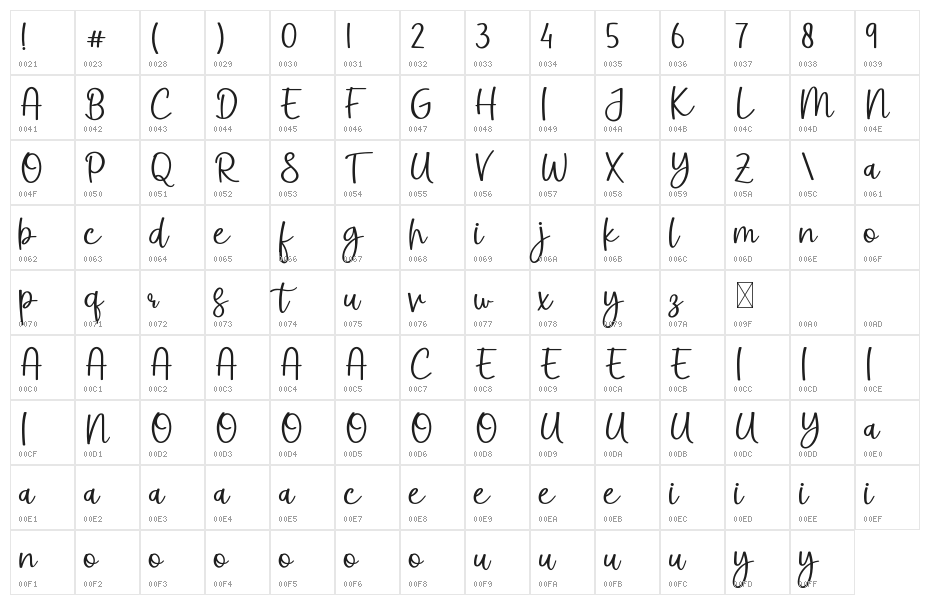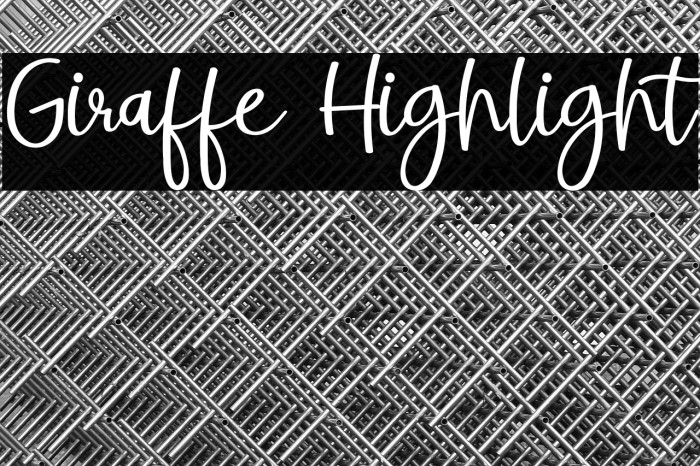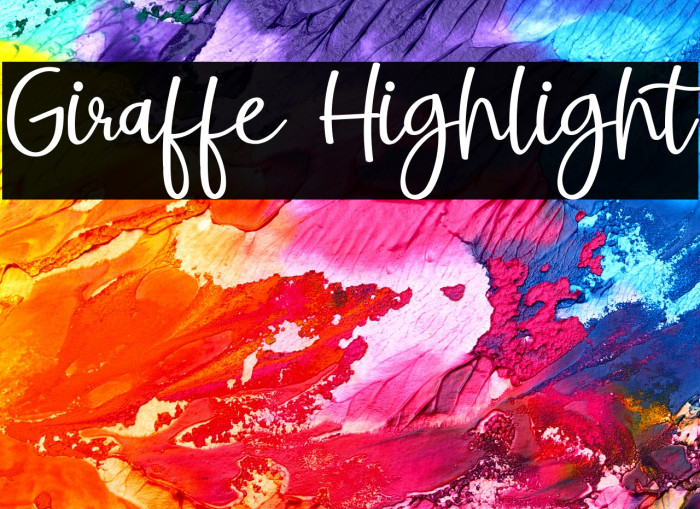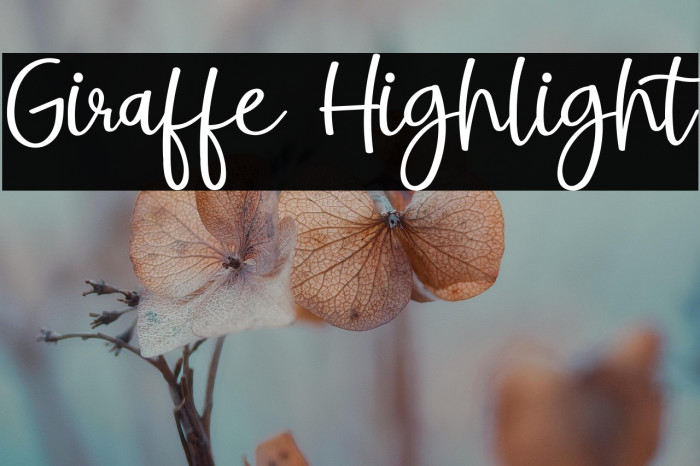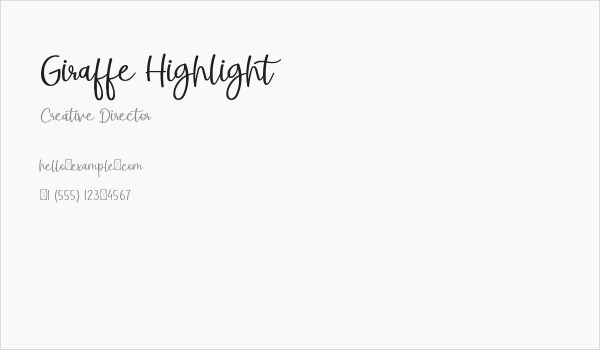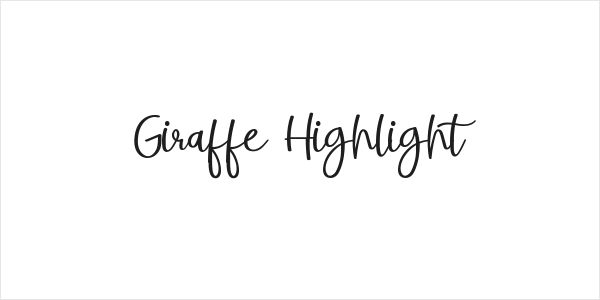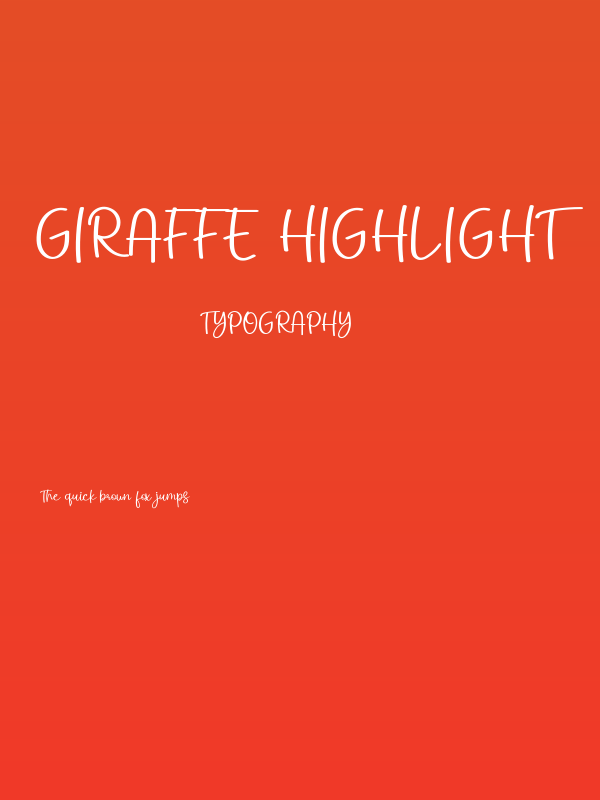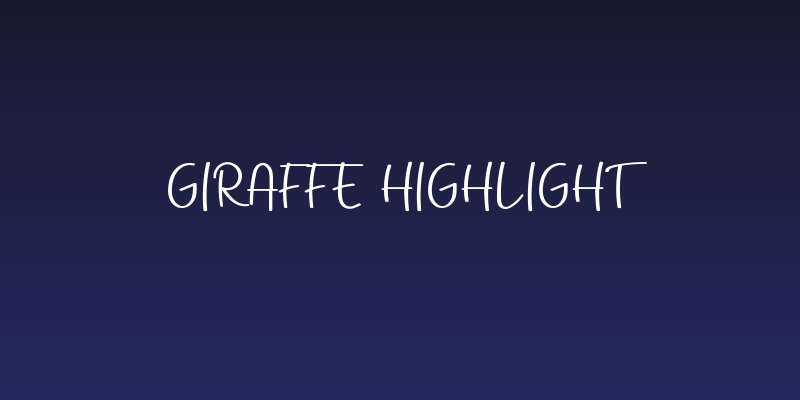
Giraffe Highlight Font
Giraffe Highlight Description
This font features a playful and casual handwritten style, characterized by smooth, flowing lines and a slightly irregular baseline that adds a touch of whimsy. The uppercase letters are tall and slender, with a consistent stroke width that maintains readability. The lowercase letters are more varied in height, with some letters extending below the baseline, enhancing the font's dynamic appearance. The numerals are clear and straightforward, matching the overall style of the alphabet. Special characters are included, maintaining the same playful aesthetic. This font is ideal for projects that require a personal, friendly touch.
Overall StyleCasual
Use CaseHeadlines, Logos, Invitations
Proposed ProjectsIdeal for greeting cards, invitations, personal branding, and social media graphics.